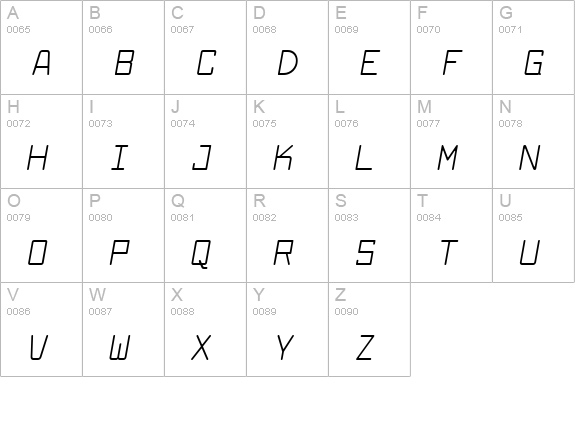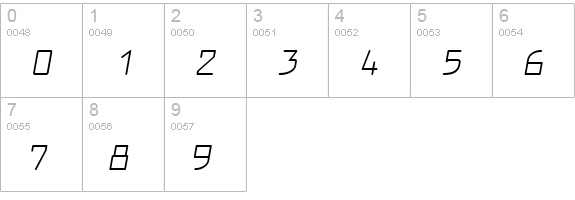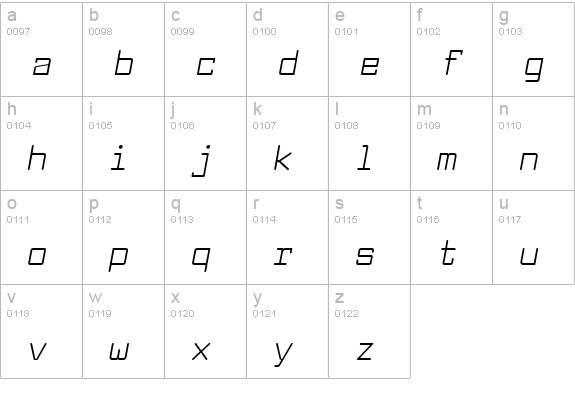
Larabiefont Italic Font Details
Larabiefont Italic is a distinctive, italic variant in the Larabiefont typeface family \xE2\x80\x94 well suited to design and typography projects.
The Larabiefont Italic font is a stylish and sophisticated typeface that exudes elegance and flair. Its slanted design adds a touch of modernity, making it perfect for projects that require a contemporary look. The sleek curves and clean lines of this font make it ideal for branding, editorial design, and various other creative endeavors. The Larabiefont Italic font is not only visually appealing but also highly versatile, making it suitable for a wide range of applications. Whether you're designing a logo, creating marketing materials, or working on a digital project, this font will add a touch of sophistication to your work. Best of all, the Larabiefont Italic font is available for free download at FontsMarket.com. This means that you can easily access this beautiful typeface without having to spend a dime. Don't miss out on the opportunity to enhance your designs with the Larabiefont Italic font – download it today and see the difference it can make!